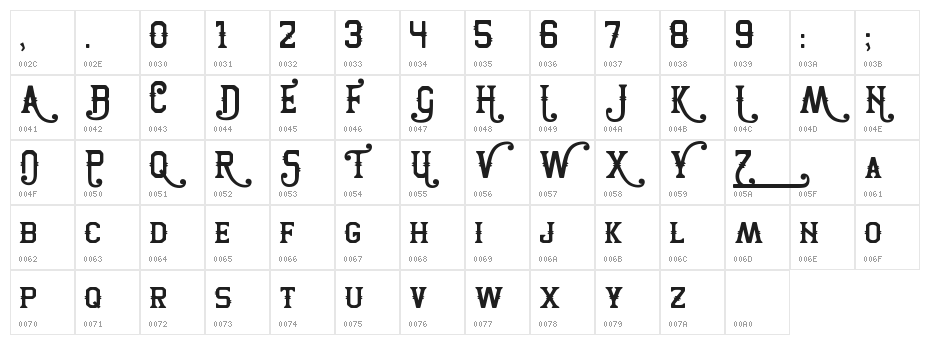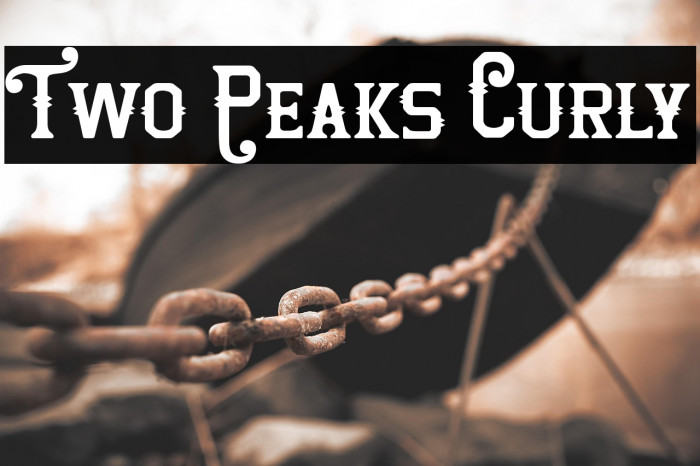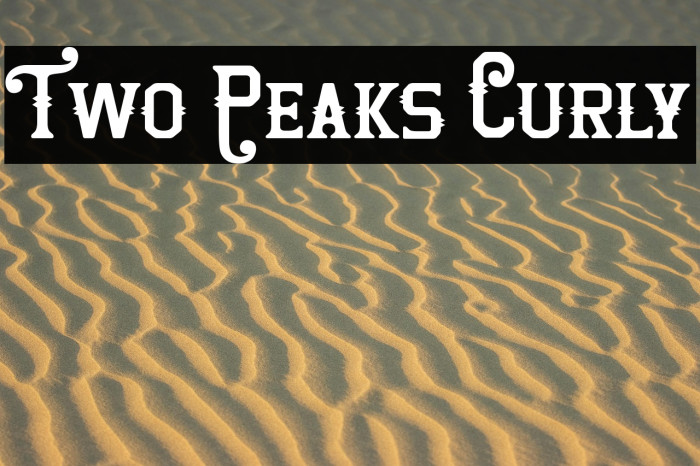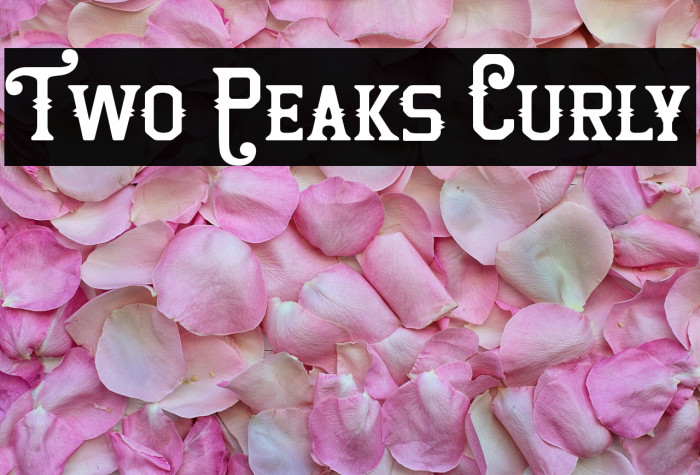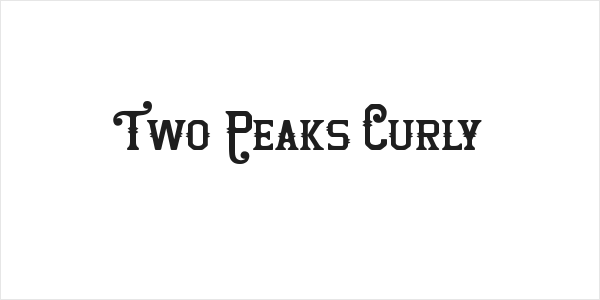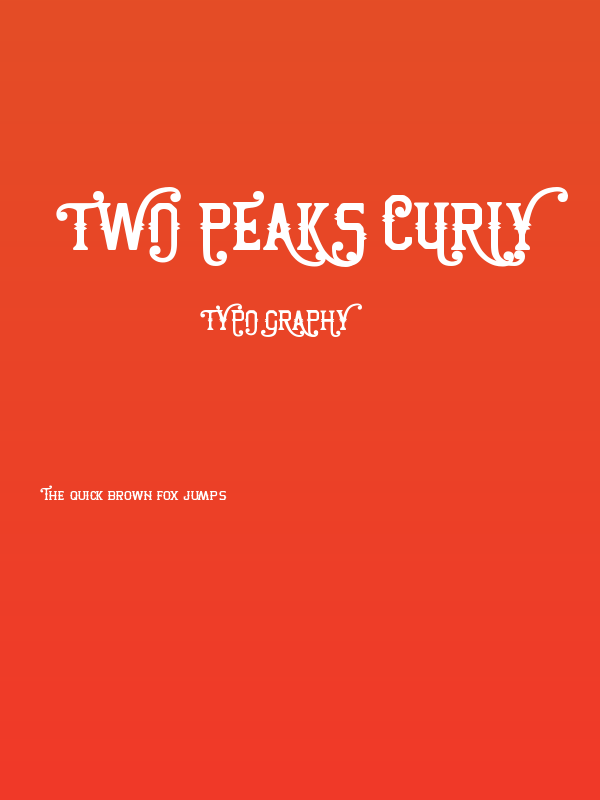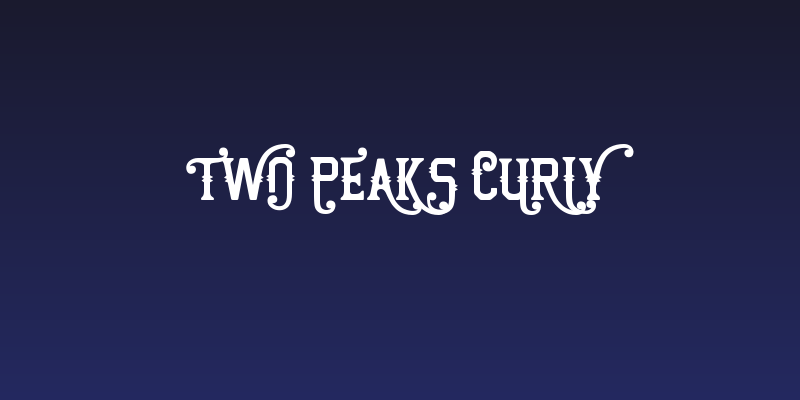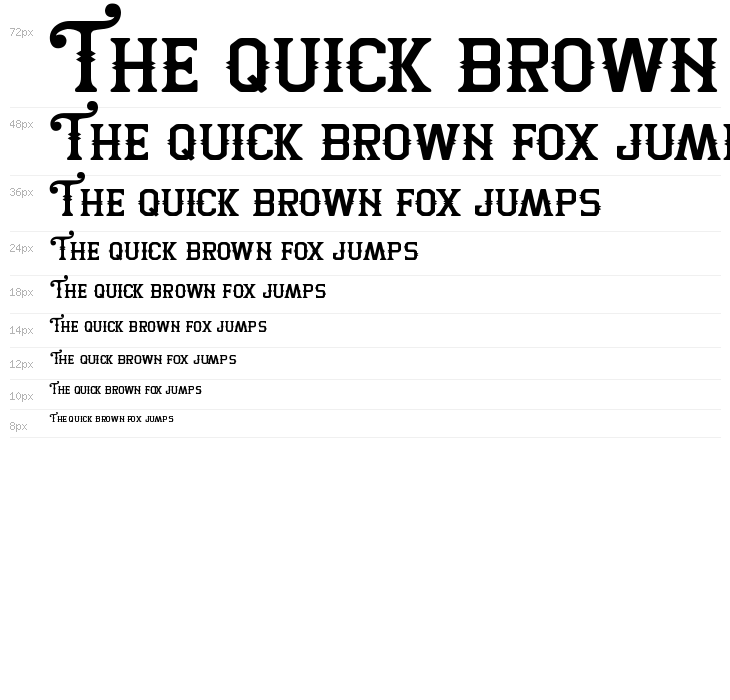
Two Peaks Curly Font
Two Peaks Curly Description
This font features a unique and decorative style with intricate curls and spikes extending from the characters, giving it a bold and eye-catching appearance. The uppercase letters are particularly ornate, with additional flourishes that add to the overall dramatic effect. The lowercase letters maintain a similar style but are slightly more subdued. The numerals are consistent with the uppercase letters, featuring the same decorative elements. This font is ideal for projects that require a strong visual impact and a touch of elegance.
| Proposed Projects | Ideal for posters, logos, branding, and any design requiring a bold, decorative touch. |